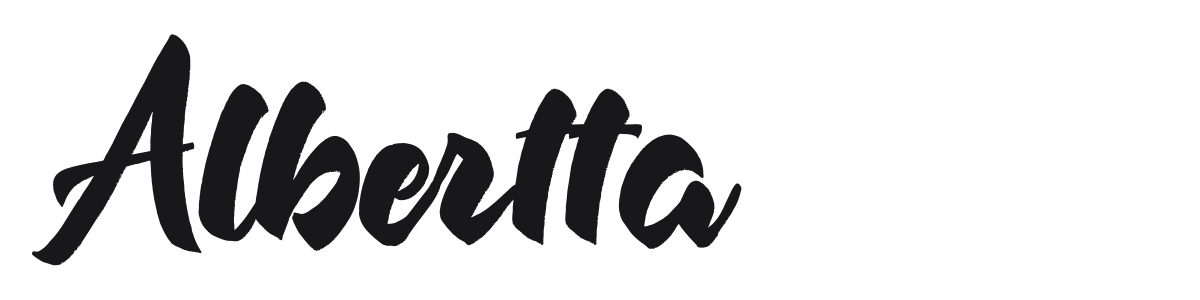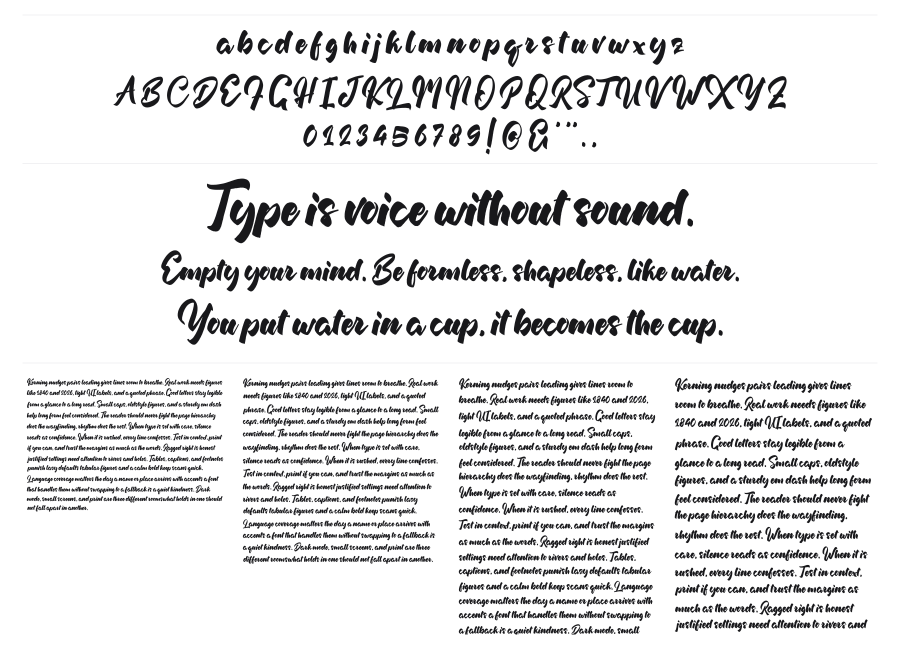
Albertta
by Pineungtype Missinklab
Albertta is a bold brush script with fluid, connected strokes and strong thick-thin contrast. It captures the spontaneous energy of hand-lettered brush calligraphy, with a pronounced forward slant and slightly rough terminals that keep it feeling authentic rather than polished. Great for logotypes, packaging, and anywhere a confident handmade voice is needed.